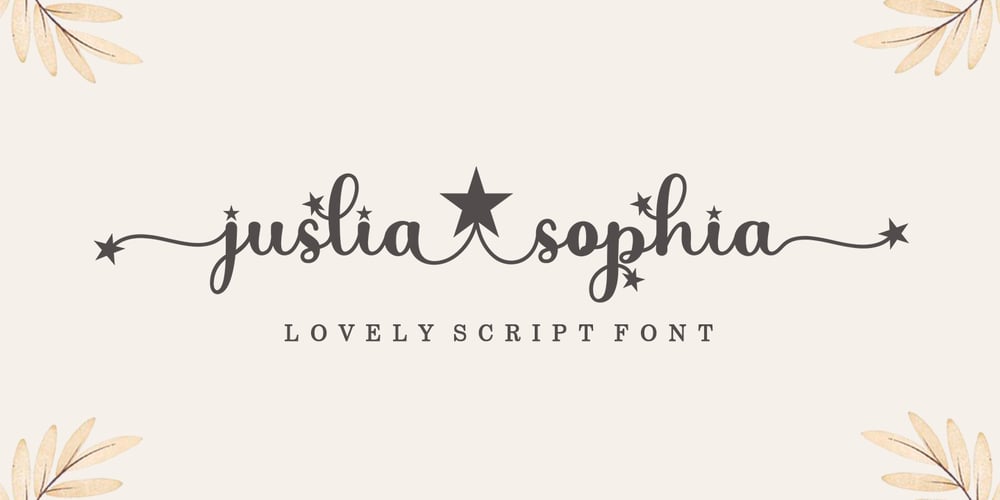
Juslia Sophia
Juslia Sophia font
Juslia Sophia Font Family was designed by Mu Fazzal and published by Bosstypestudio. Juslia Sophia contains 1 styles and family package options. Juslia Sophia is an cute calligraphy luxury font that comes with a very beautiful character change, a kind of classic decorative script with a modern touch, designed with high detail to present an elegant style.